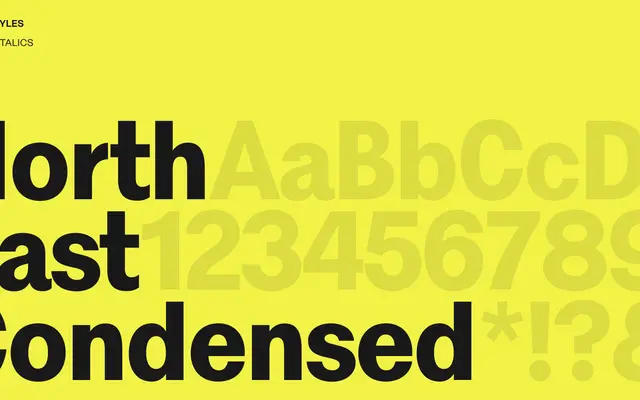
North East Condensed
A condensed sans-serif from Copenhagen foundry Playtype, suited to display and editorial contexts where tight horizontal space is needed.
North East Condensed is a narrow grotesque from Playtype, the Copenhagen-based foundry known for type-led retail and licensing. The condensed cut positions it for headlines, posters and identities where column width or format demands a compressed letterform. Beyond the name and specimen text, the foundry page provides limited detail on weights or language coverage.
The name and condensed designation suggest a narrow grotesque or gothic sans-serif; no explicit classification is given in the page content.